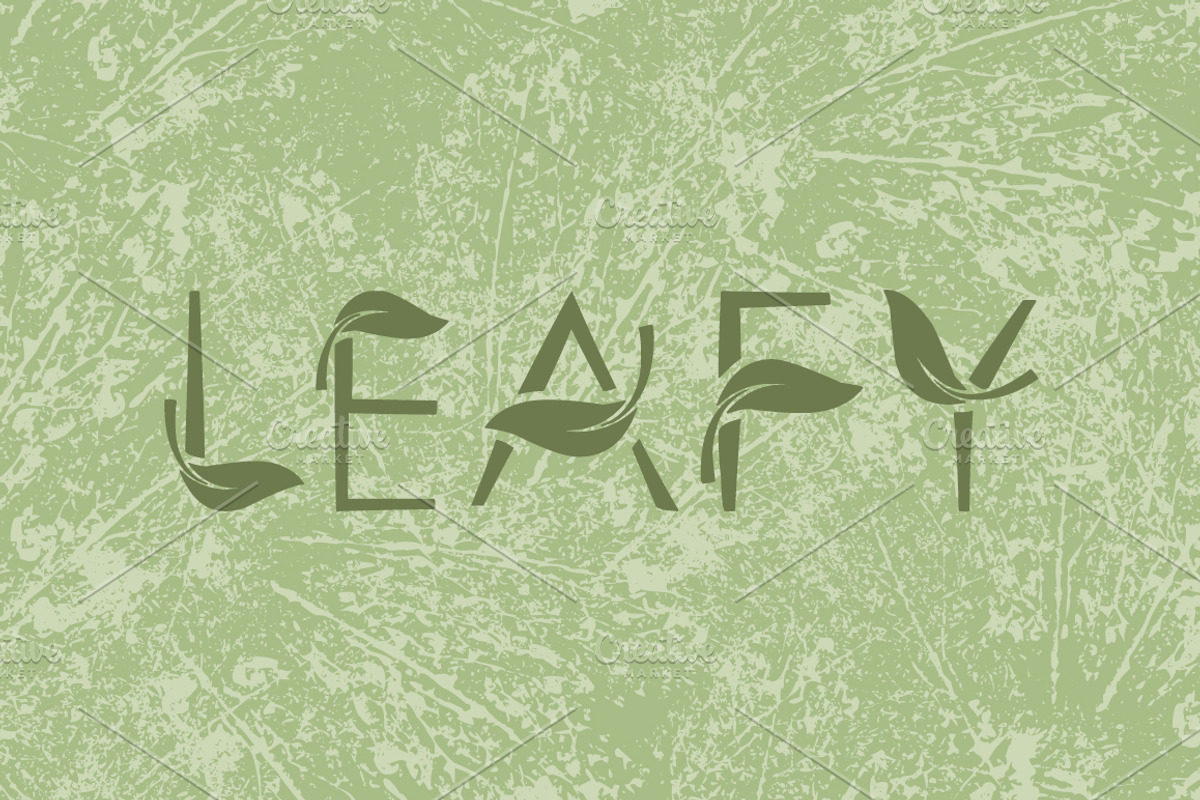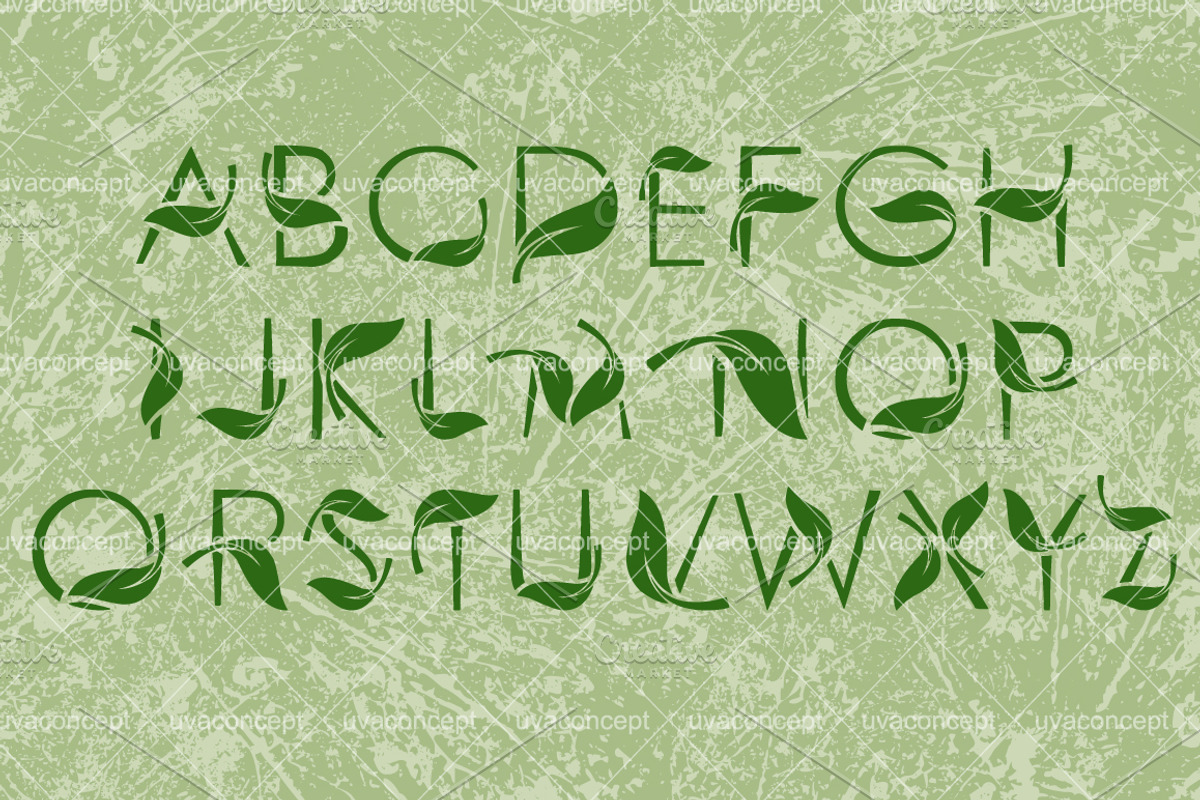
LEAFY art font
LEAFY art font by UVAconcept is a font selected for branding, posters, packaging, typography.
- Art font in uppercase Floral Font with leaves.
Why LEAFY art font is worth a look
LEAFY art font by UVAconcept fits naturally into Branding, posters, packaging, typography.